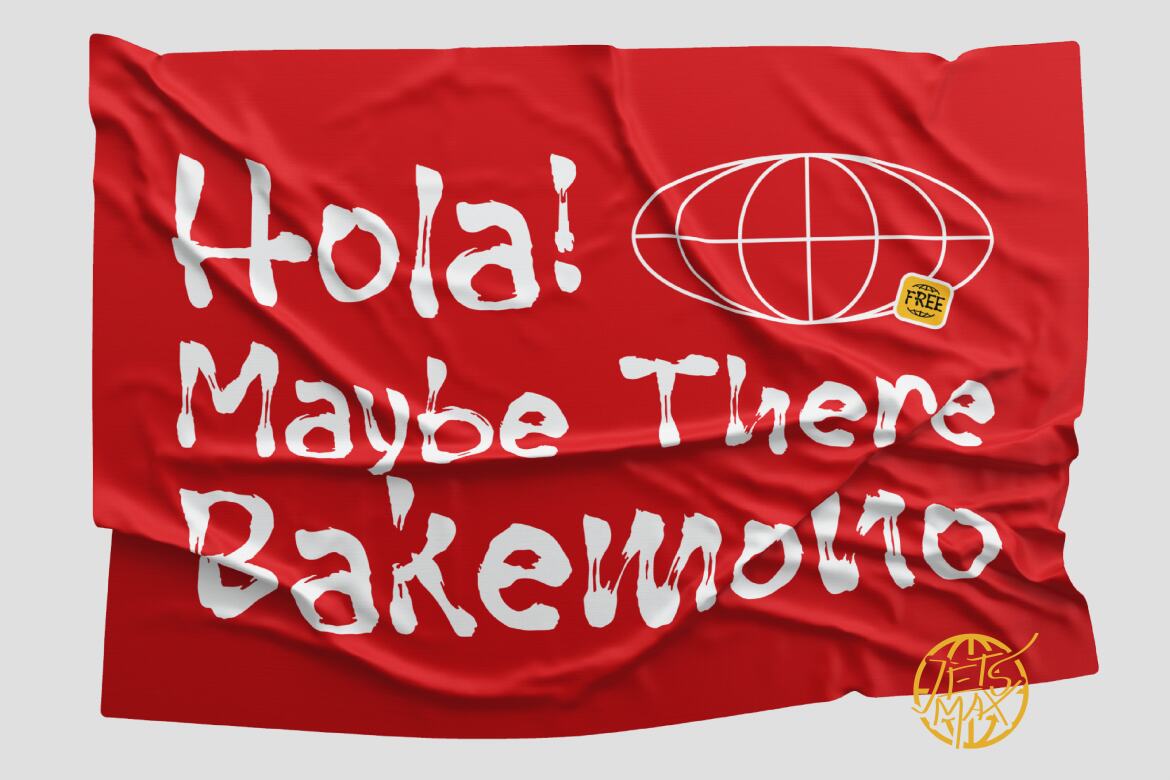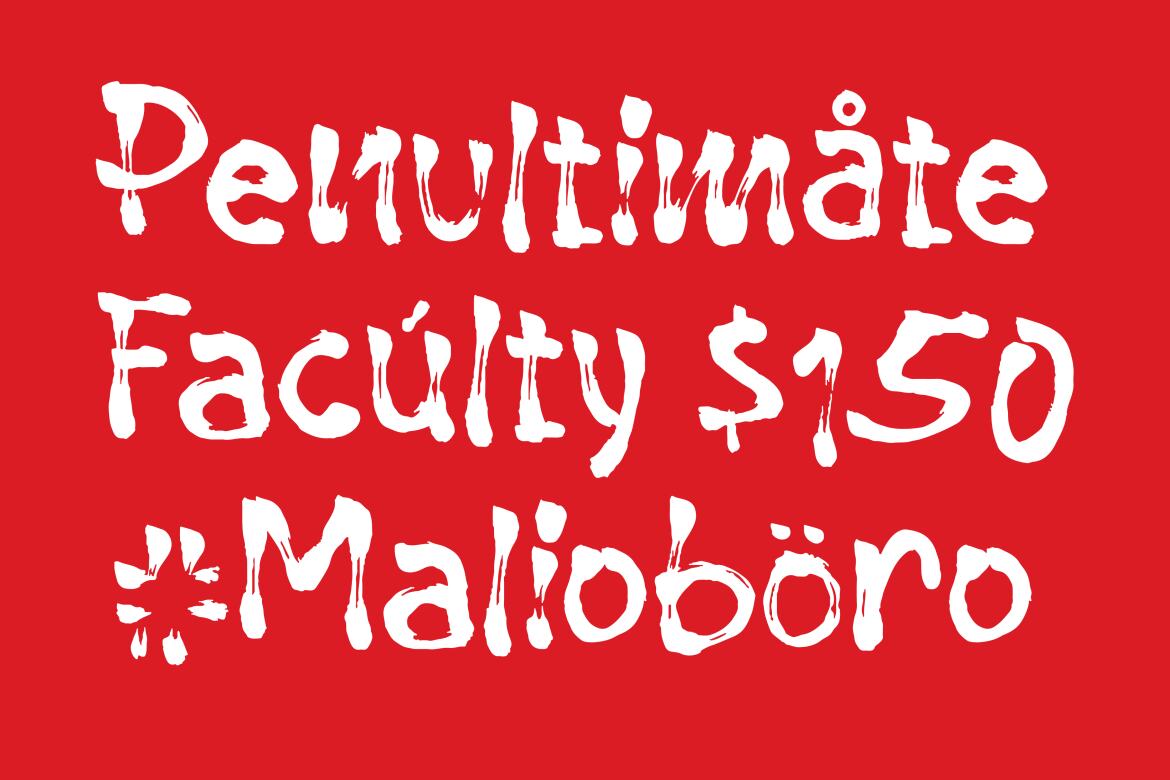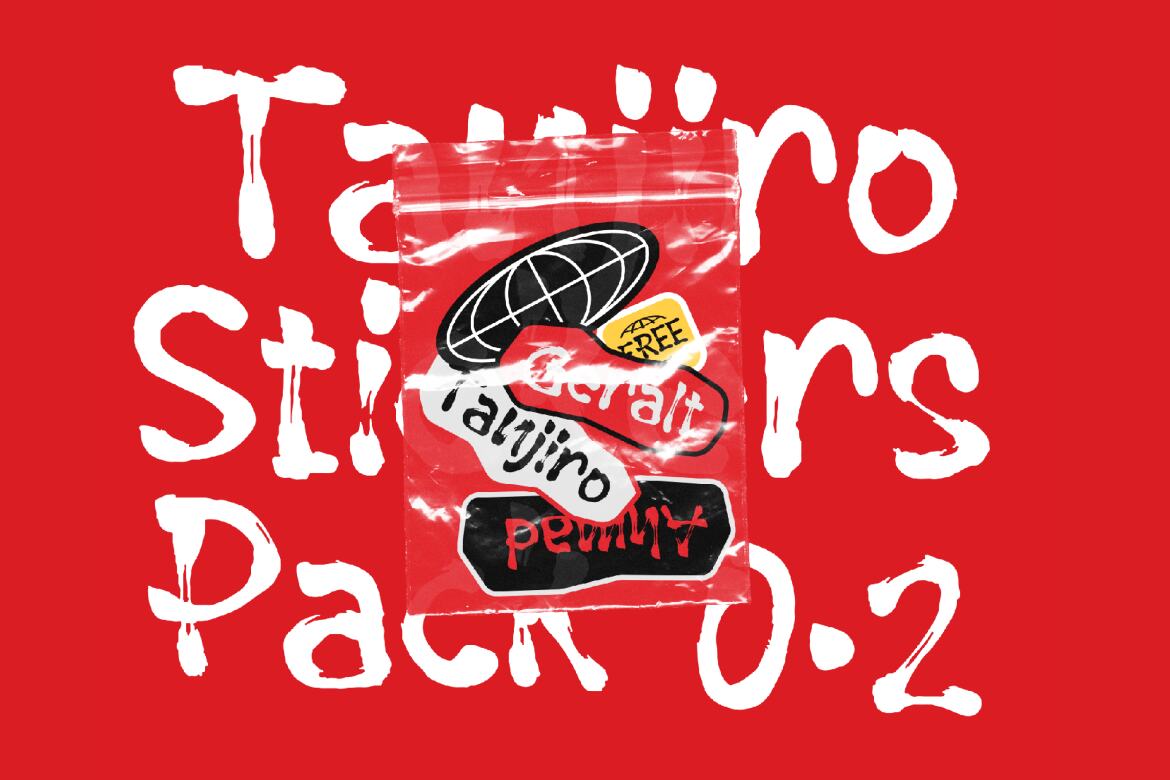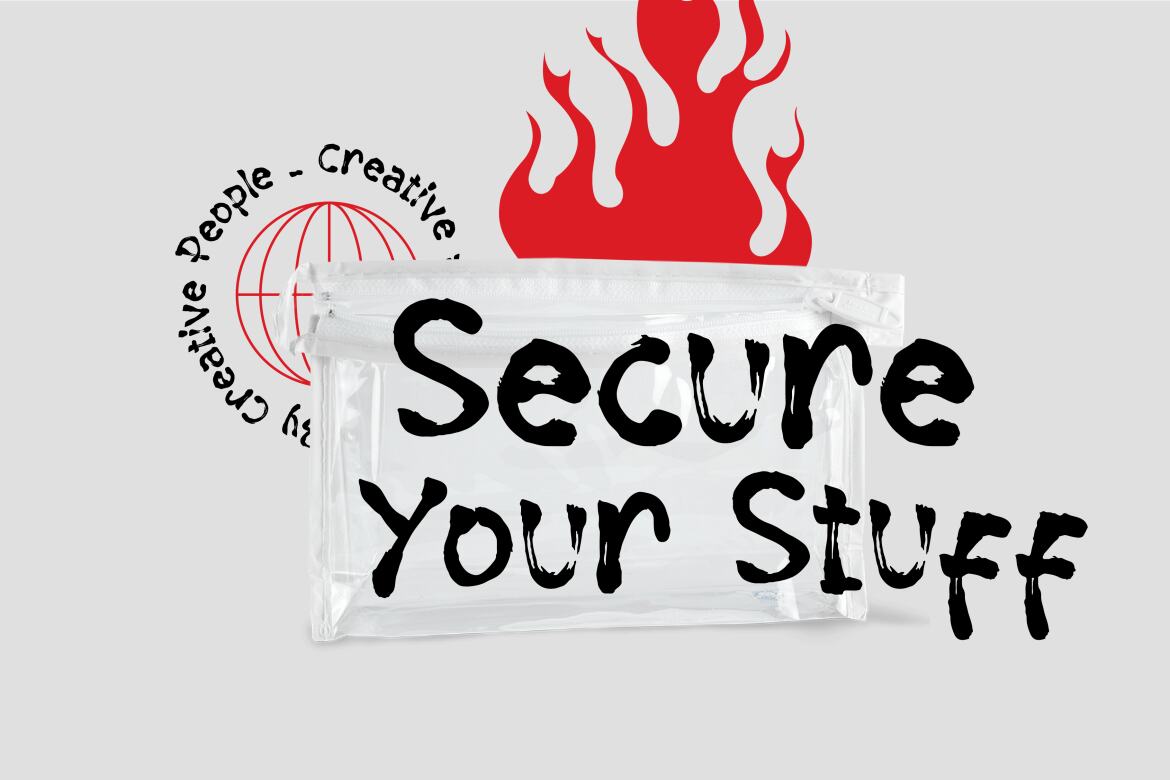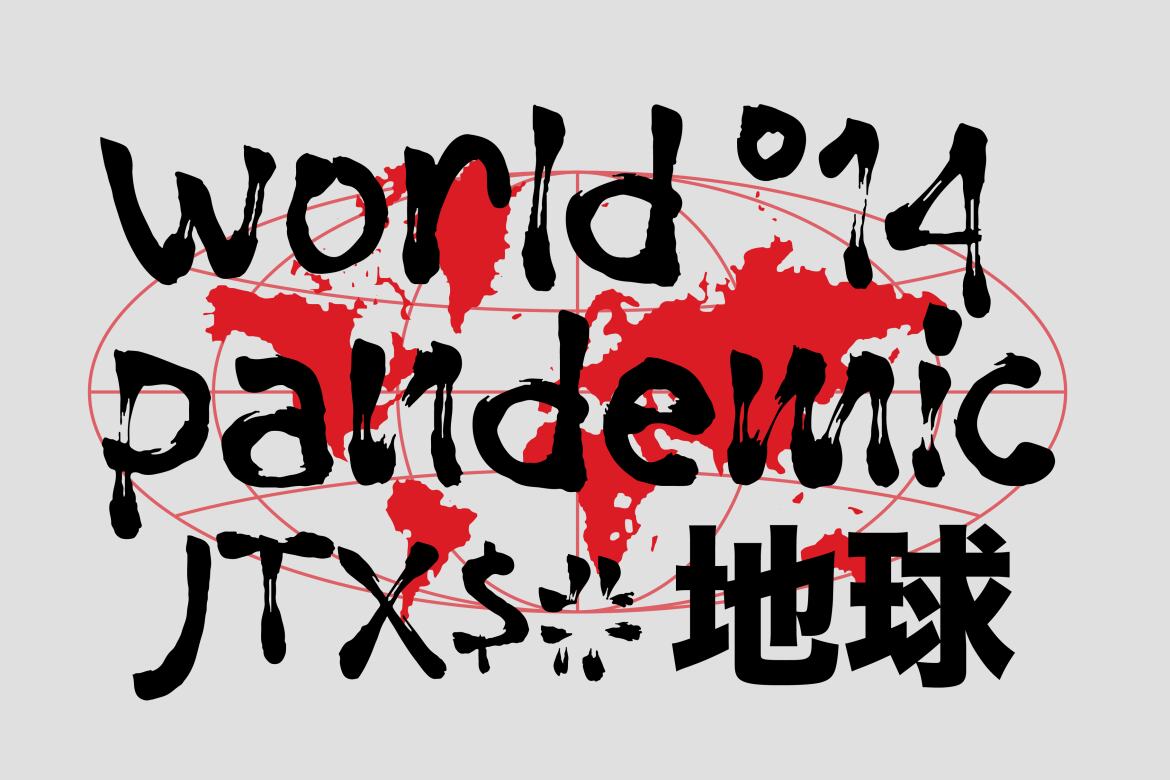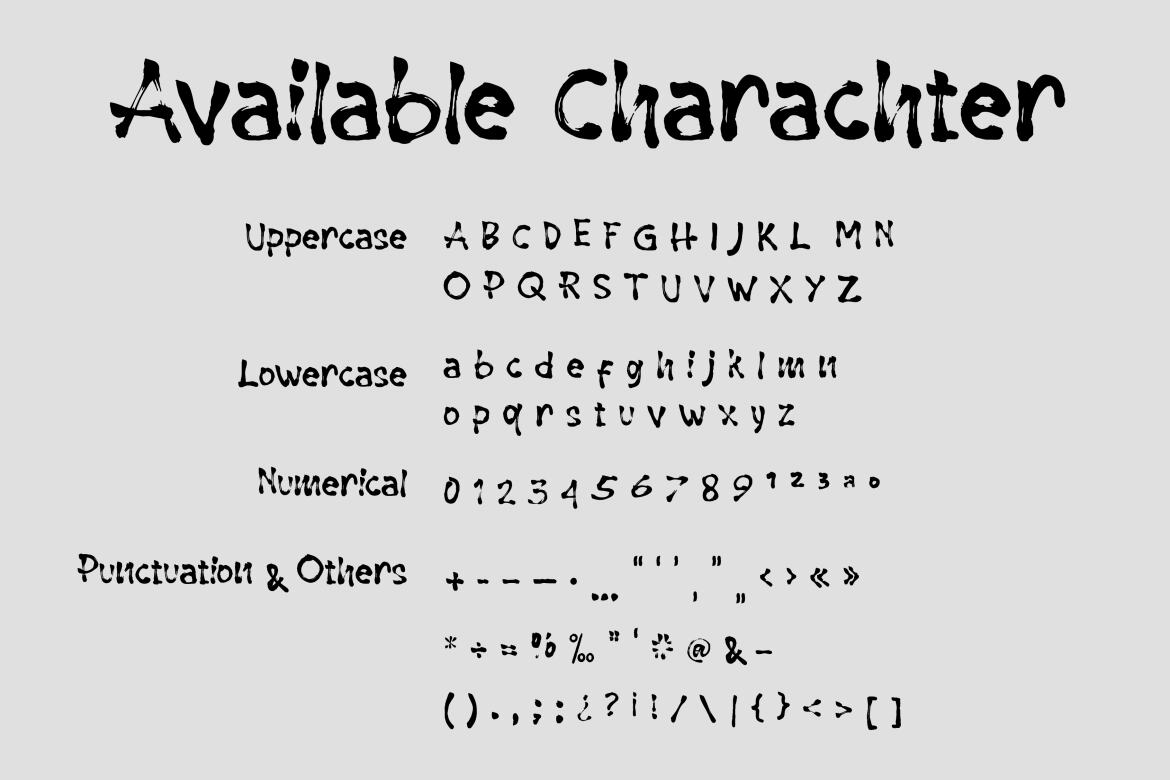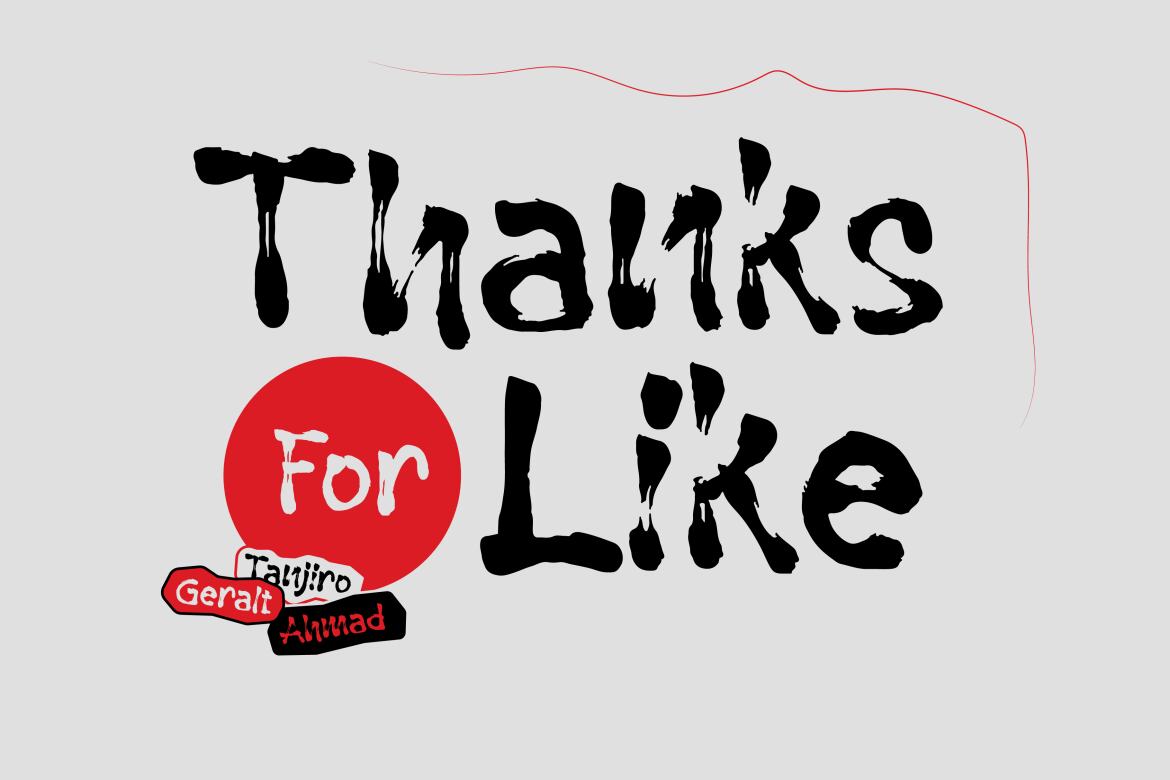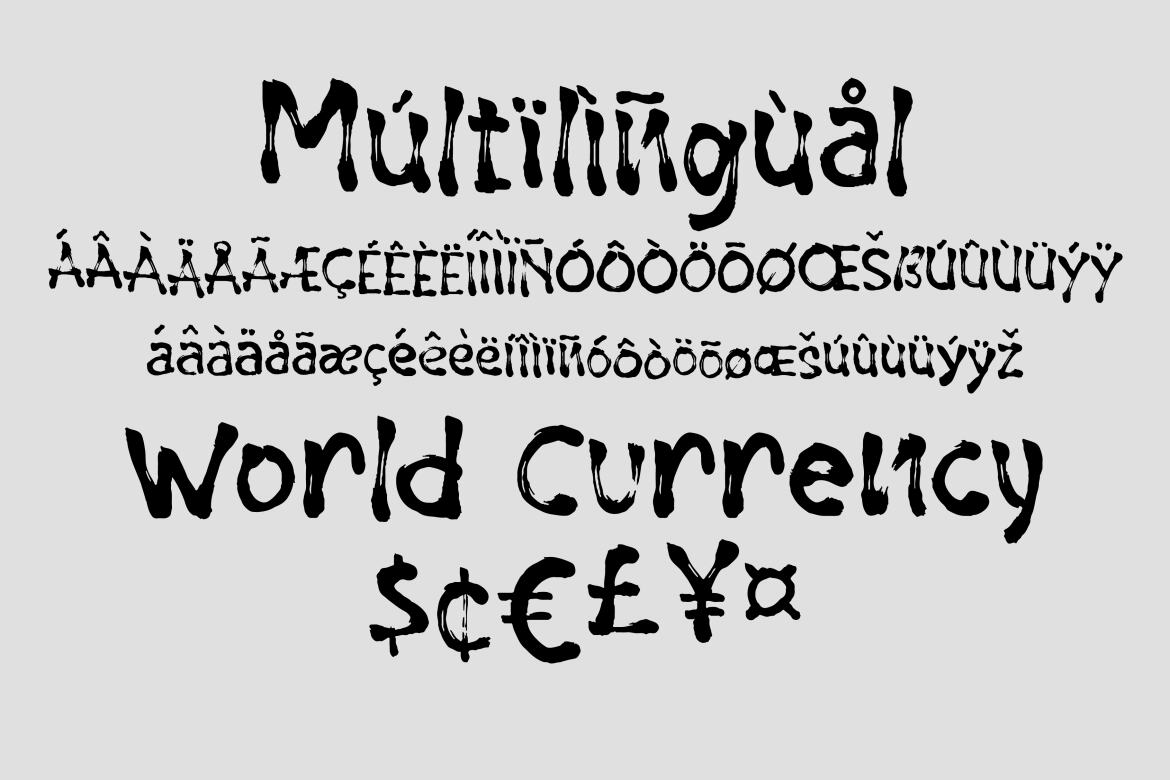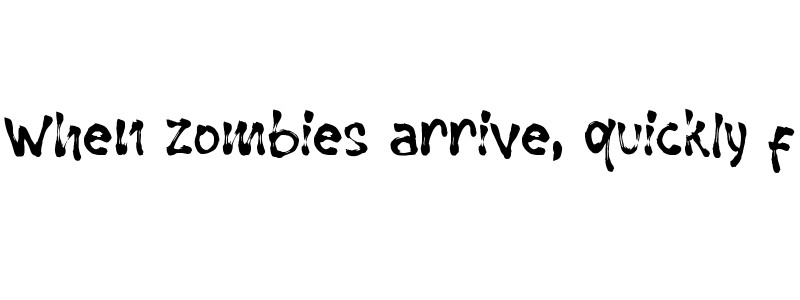
Ryujin Attack - Free Display Font
Ryujin Attack
Ryujin Attack is a trendy brush typeface with natural hand writing style. You can use this font to elevate any of your design project FOR FREE!!